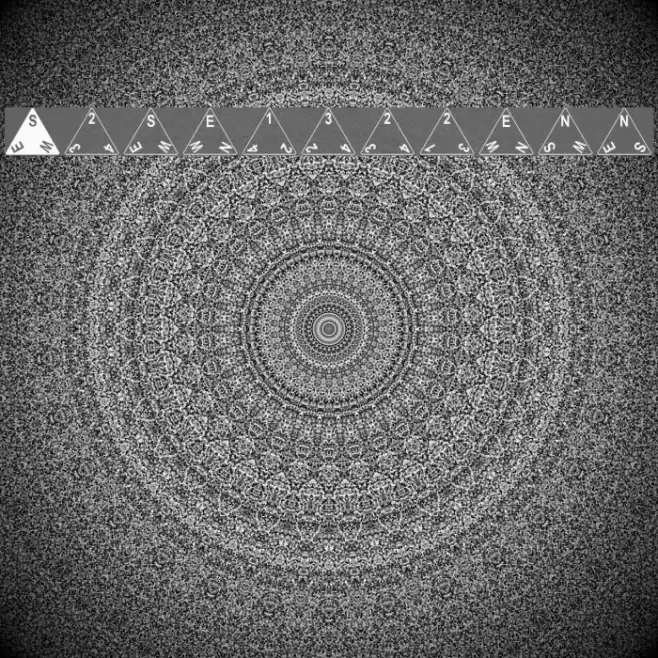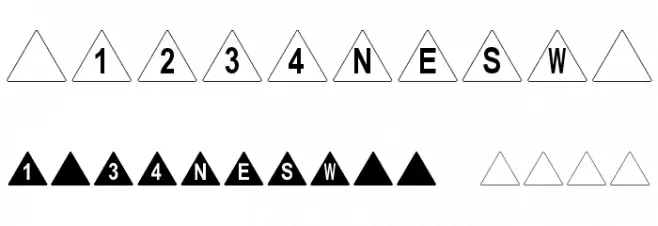
Tetrahedron Font
Tetrahedron Description
This image does not depict a valid font. Instead, it shows a series of tetrahedron shapes with numbers and letters on them, likely representing directions and numerical values. The design is geometric and lacks the typical characteristics of a font, such as consistent letterforms and spacing. The elements are arranged in a way that suggests a navigational or instructional purpose rather than typographic design.
The image displays tetrahedron shapes with numbers and directional letters from Dingbats fonts.
- Proposed Projects: This design could be used for educational tools, board games, or navigational aids.
- Overall Style: Geometric
- Use Case: Educational tools, Board games, Navigational aids